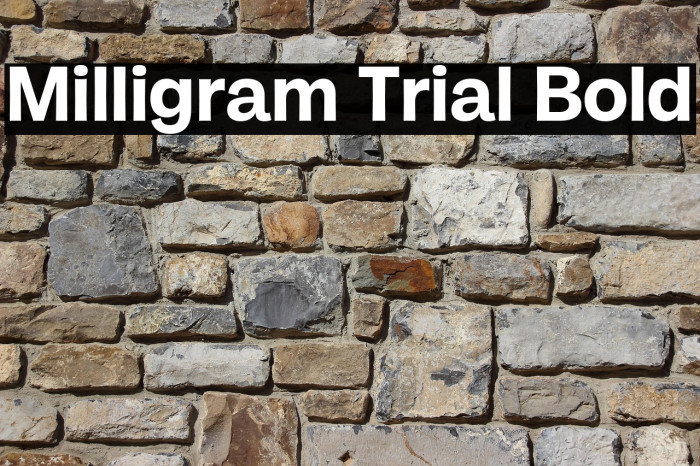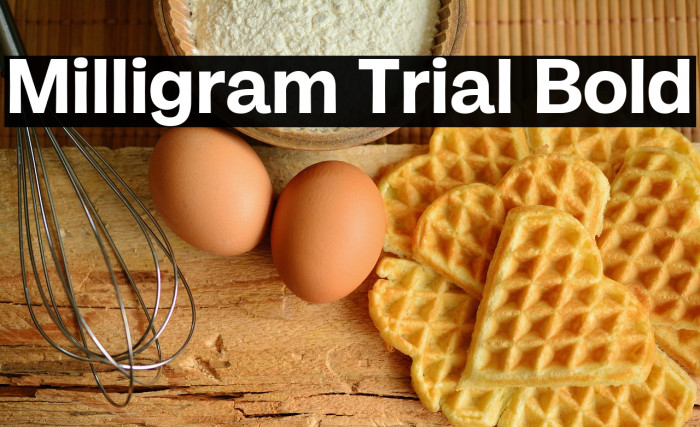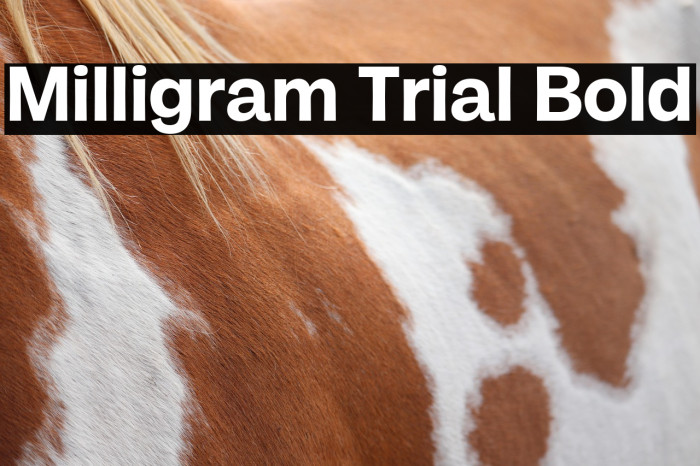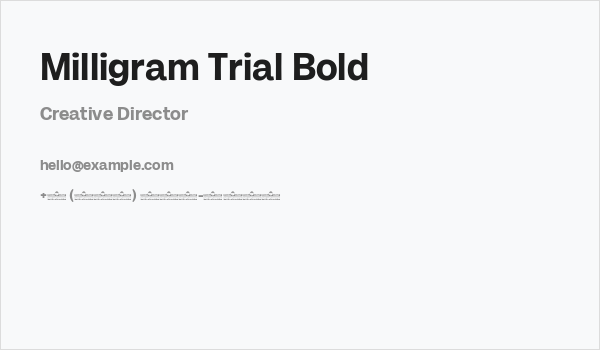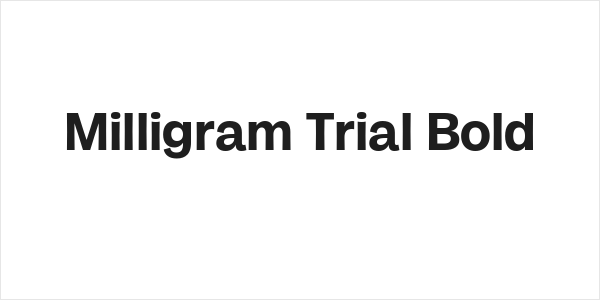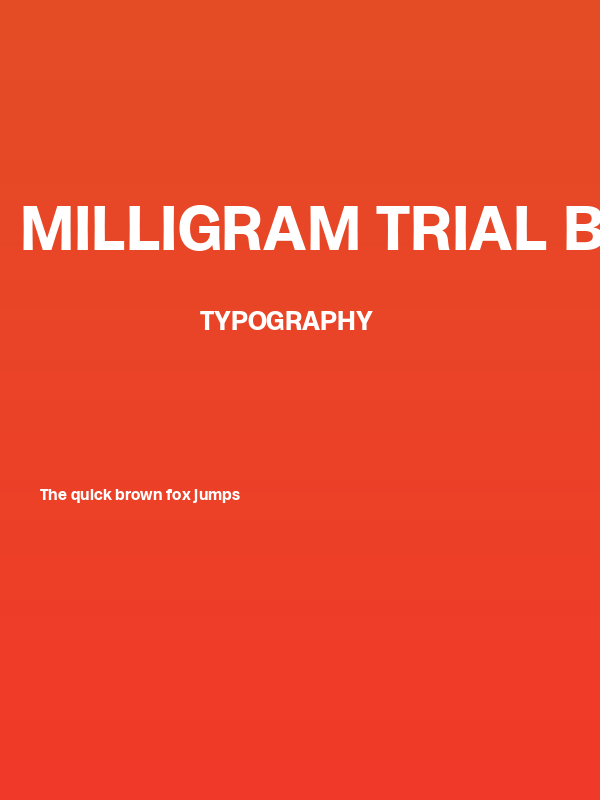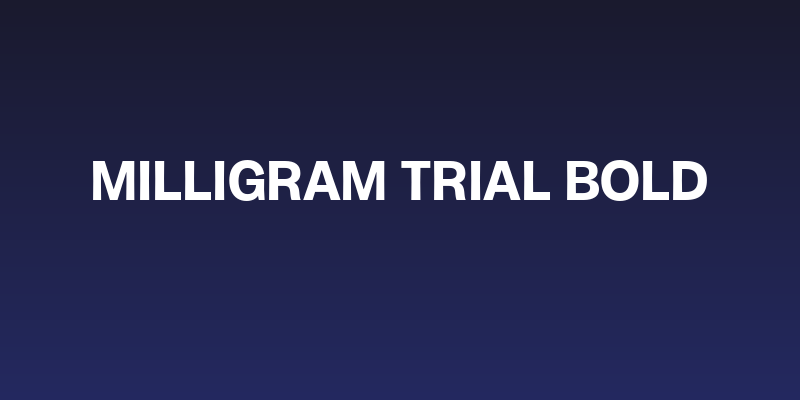
Milligram Trial Bold Font
Milligram Trial Bold Description
This font features a bold and robust design with clean, straight lines and a modern aesthetic. The uppercase and lowercase letters are well-proportioned, offering a sense of balance and uniformity. The characters are designed with a consistent stroke width, contributing to a cohesive and harmonious appearance. The font's simplicity and clarity make it highly legible, even at smaller sizes. It includes a full set of uppercase and lowercase letters, numerals, and a variety of special characters, making it versatile for various design needs.
| Use Case | Headlines, Logos, Digital content |
| Proposed Projects | Ideal for branding, advertising, headlines, and digital content where clarity and impact are essential. |